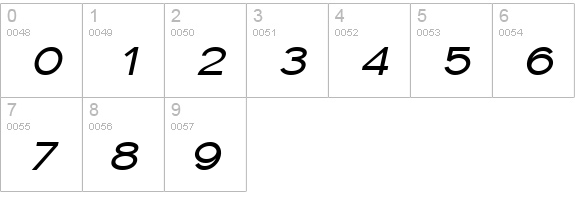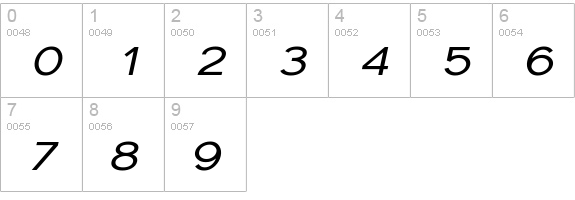
Florencesans SC Exp Italic is a distinctive, italic variant in the Florencesans typeface family \xE2\x80\x94 well suited to design and typography projects.
Florencesans SC Exp Italic font is a modern and elegant typeface designed to bring sophistication and flair to your projects. Its sleek and stylish design adds a touch of class to any text, making it perfect for branding, editorial work, and more. The italic style of this font adds a dynamic and engaging look to your text, making it stand out from the crowd. Best of all, Florencesans SC Exp Italic font is available for free download at FontsMarket.com. This means you can easily access this beautiful font and use it in your designs without any cost. Whether you're a designer looking to add a touch of sophistication to your projects or a business owner wanting to elevate your branding, Florencesans SC Exp Italic font is the perfect choice. Download it now and take your designs to the next level!